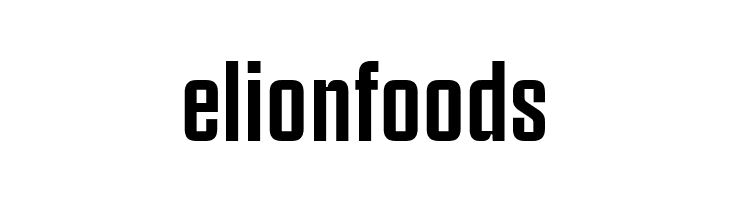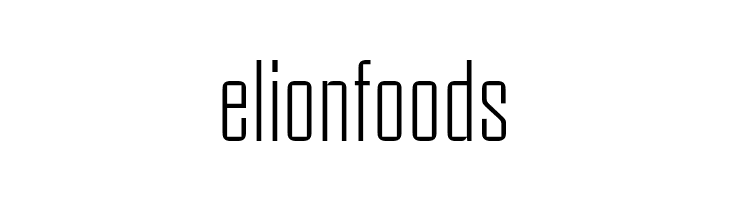
A sleek, modern font with elongated, narrow characters and a minimalistic design.
A modern, geometric font with a tall, narrow design and minimal contrast.